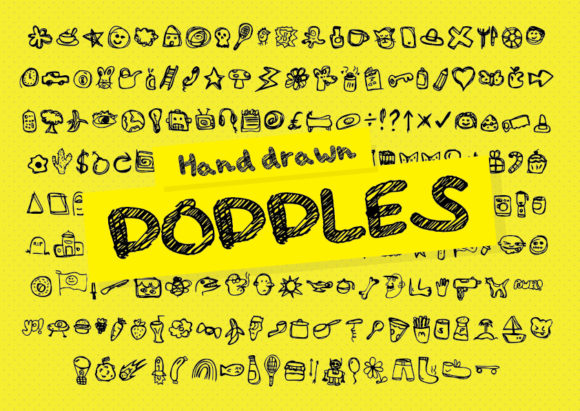
The Ultimate Doodle Font for Creatives: 196 Hand Drawn Doodles Font
Have you ever been working on a design project, and suddenly, you need that perfect font to bring your ideas to life? I recall a project where I was tasked with creating a whimsical branding package for a children’s play area. The client wanted something playful, yet sophisticated. After hours of searching, I stumbled upon the 196 Hand Drawn Doodles Font, and it was love at first sight! 🤩
This delightful font is more than just a collection of characters; it’s a treasure trove of over 200 cute doodles and dingbats inspired by everyday objects, foods, shapes, symbols, and more. In this article, we’ll dive into the world of 196 Hand Drawn Doodles Font, exploring its features, and how to make the most of it in your designs.
- 🎉 Huge variety of doodles and dingbats to choose from
- 💖 Whimsical and playful, perfect for creative projects
The Designer Inspiration Behind 196 Hand Drawn Doodles Font
The creator of 196 Hand Drawn Doodles Font is a talented designer with a passion for illustration and typography. Inspired by everyday objects and childhood memories, they set out to create a font that would bring joy and whimsy to designers and crafters alike. With a keen eye for detail and a love for doodling, they carefully crafted each character to ensure that the font is both fun and functional.
| Font Name | 196 Hand Drawn Doddles Font |
| Is the font suitable for children’s projects? | Absolutely! The font’s playful and whimsical nature makes it perfect for children’s books, educational materials, and more. |
196 Hand Drawn Doodles Font is a versatile and delightful addition to any designer’s toolkit. With its vast array of doodles and dingbats, you can add a touch of whimsy and personality to your projects. Whether you’re a seasoned designer or a creative hobbyist, this font is sure to inspire and bring joy to your work.